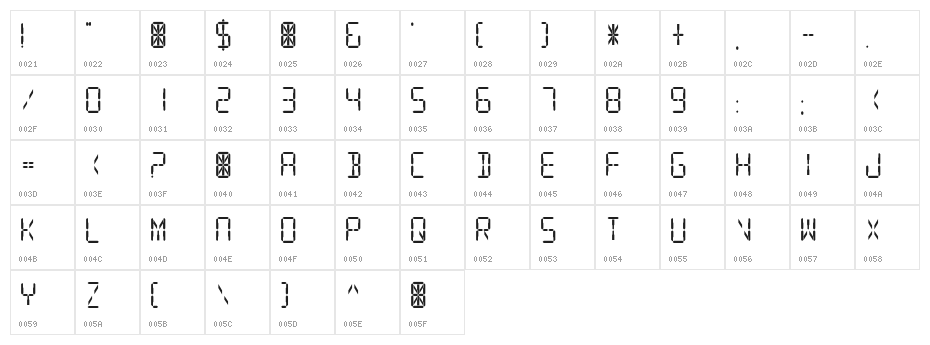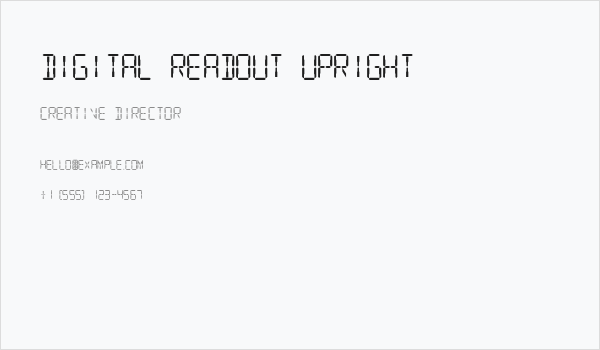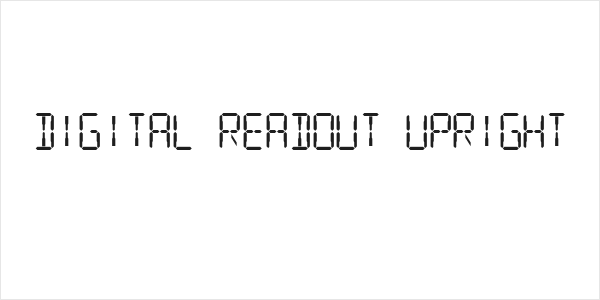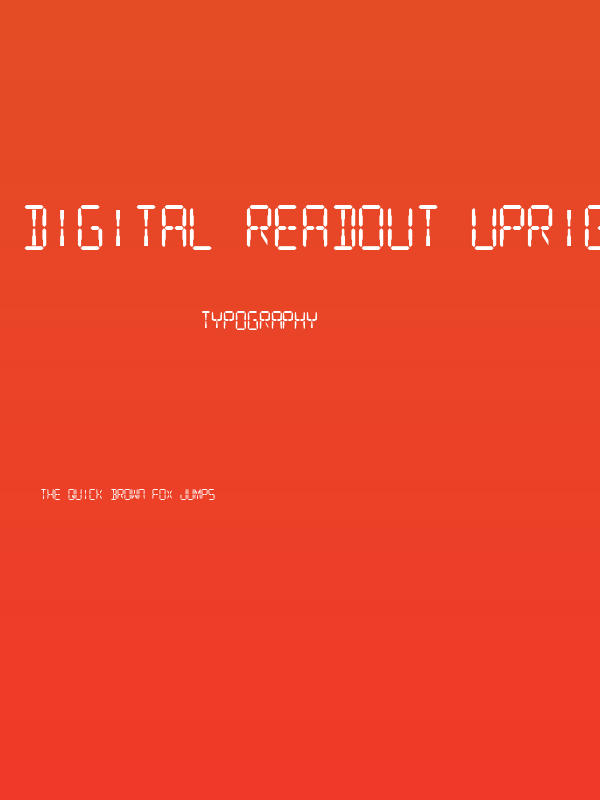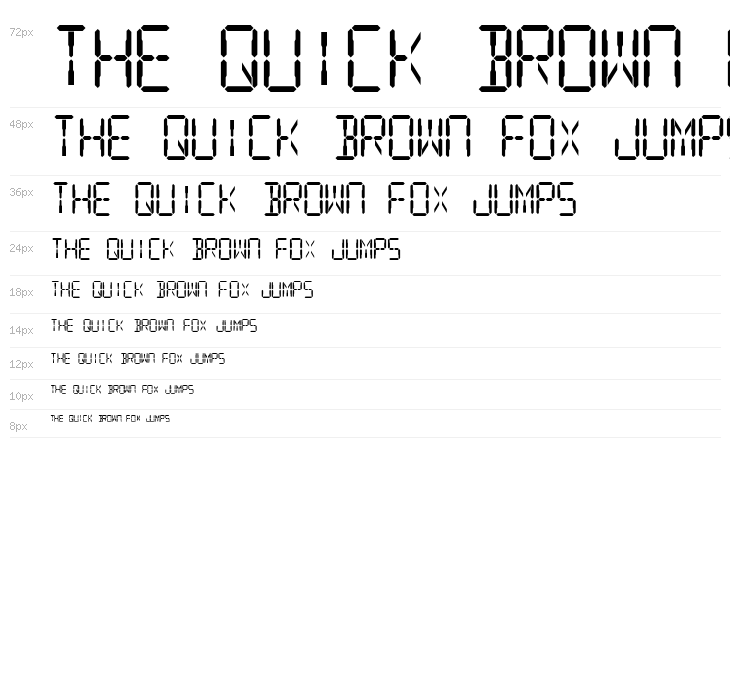
Digital Readout Upright Font
Digital Readout Upright Description
This font features a digital, segmented style reminiscent of classic LED displays. Each character is constructed using a series of straight lines and angles, creating a geometric and mechanical appearance. The uppercase and lowercase letters maintain a consistent height and width, emphasizing uniformity and precision. Numbers and special characters follow the same segmented design, ensuring a cohesive look across all glyphs. The font's design is highly legible, making it ideal for conveying information in a straightforward manner. Its distinct, futuristic aesthetic is perfect for projects that require a technological or retro digital theme.
| Use Case | Headlines, Logos, Digital displays |
| Proposed Projects | Ideal for digital interfaces, tech-themed designs, retro displays, and any project requiring a futuristic or mechanical look. |